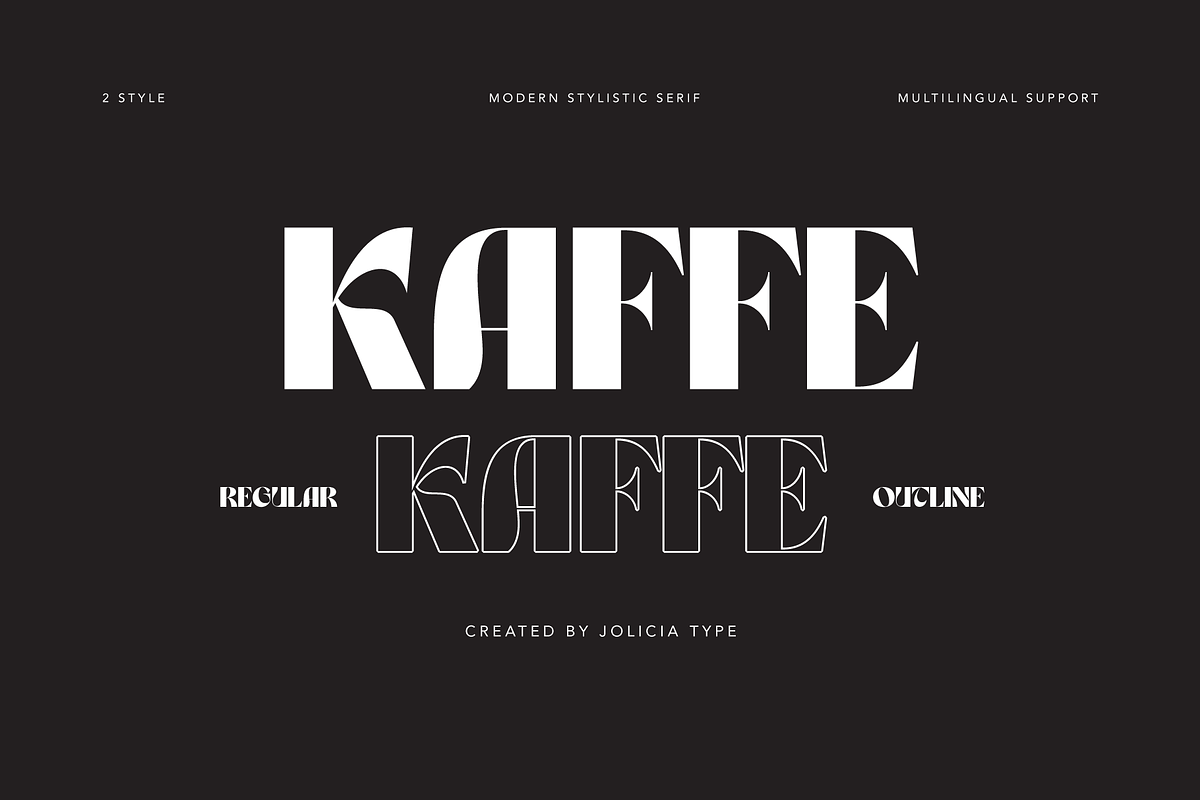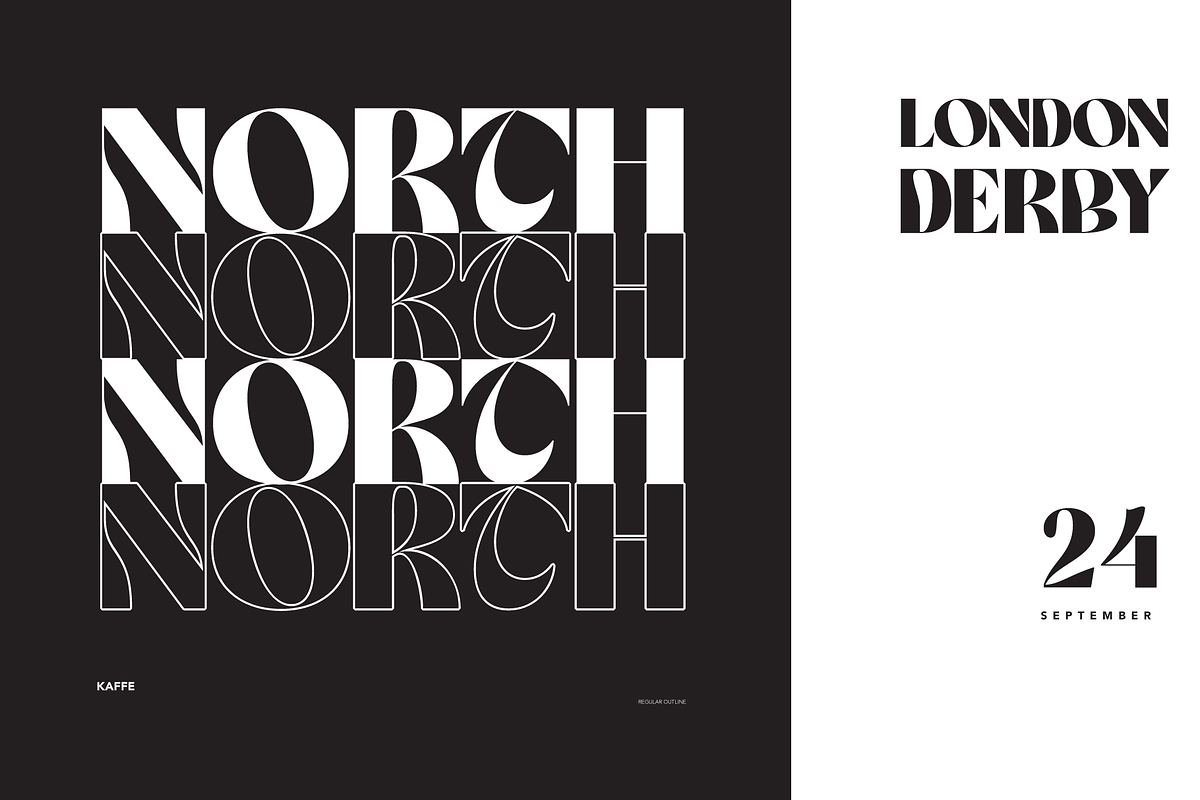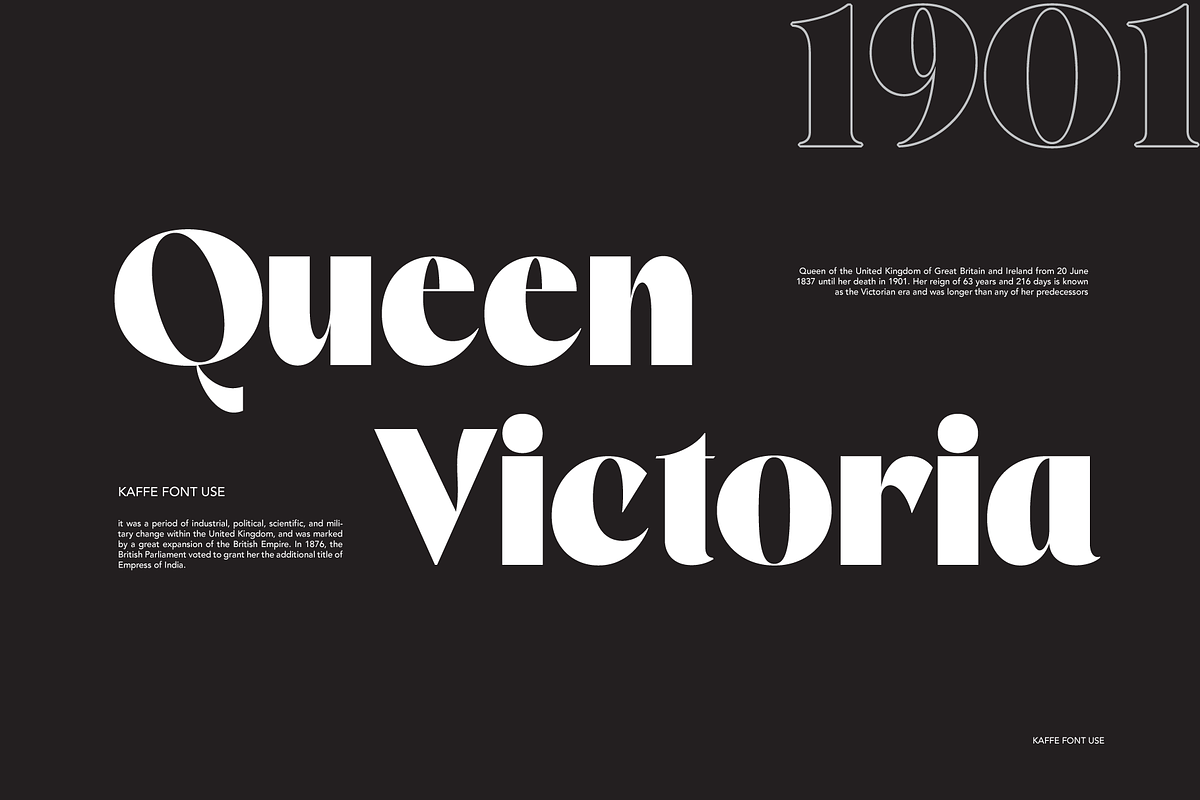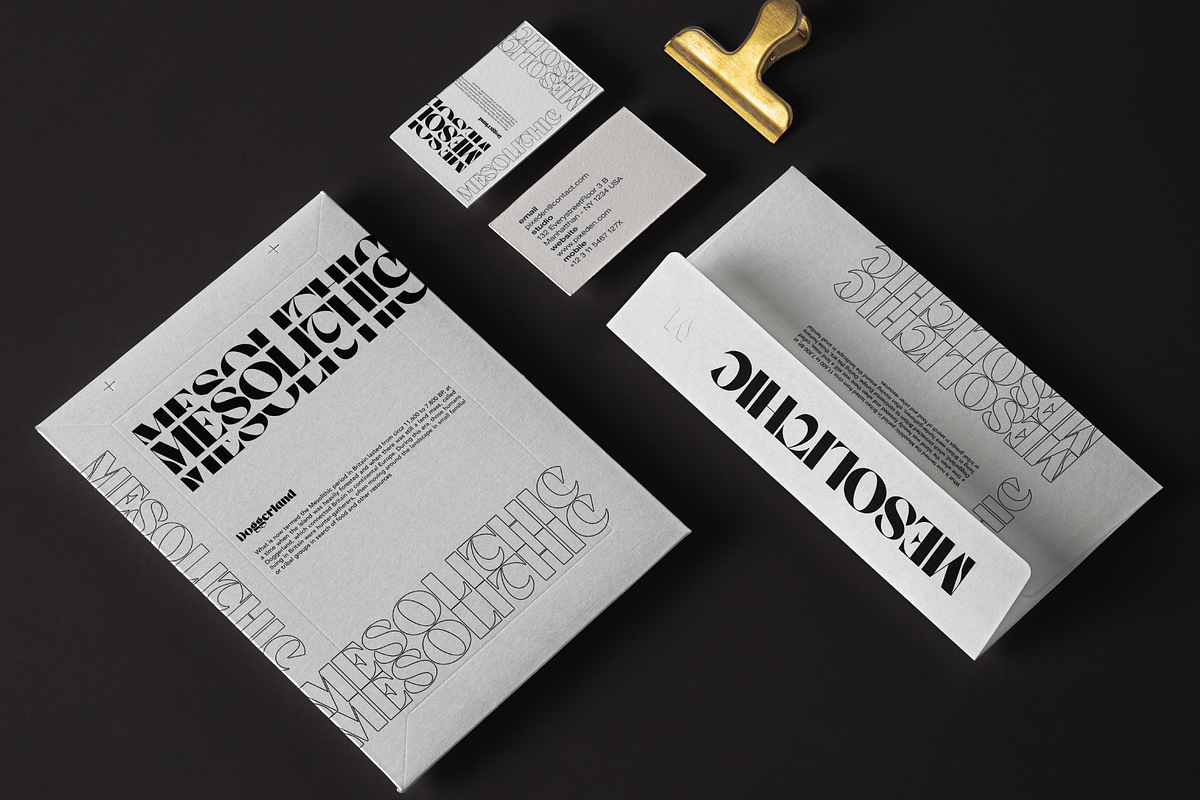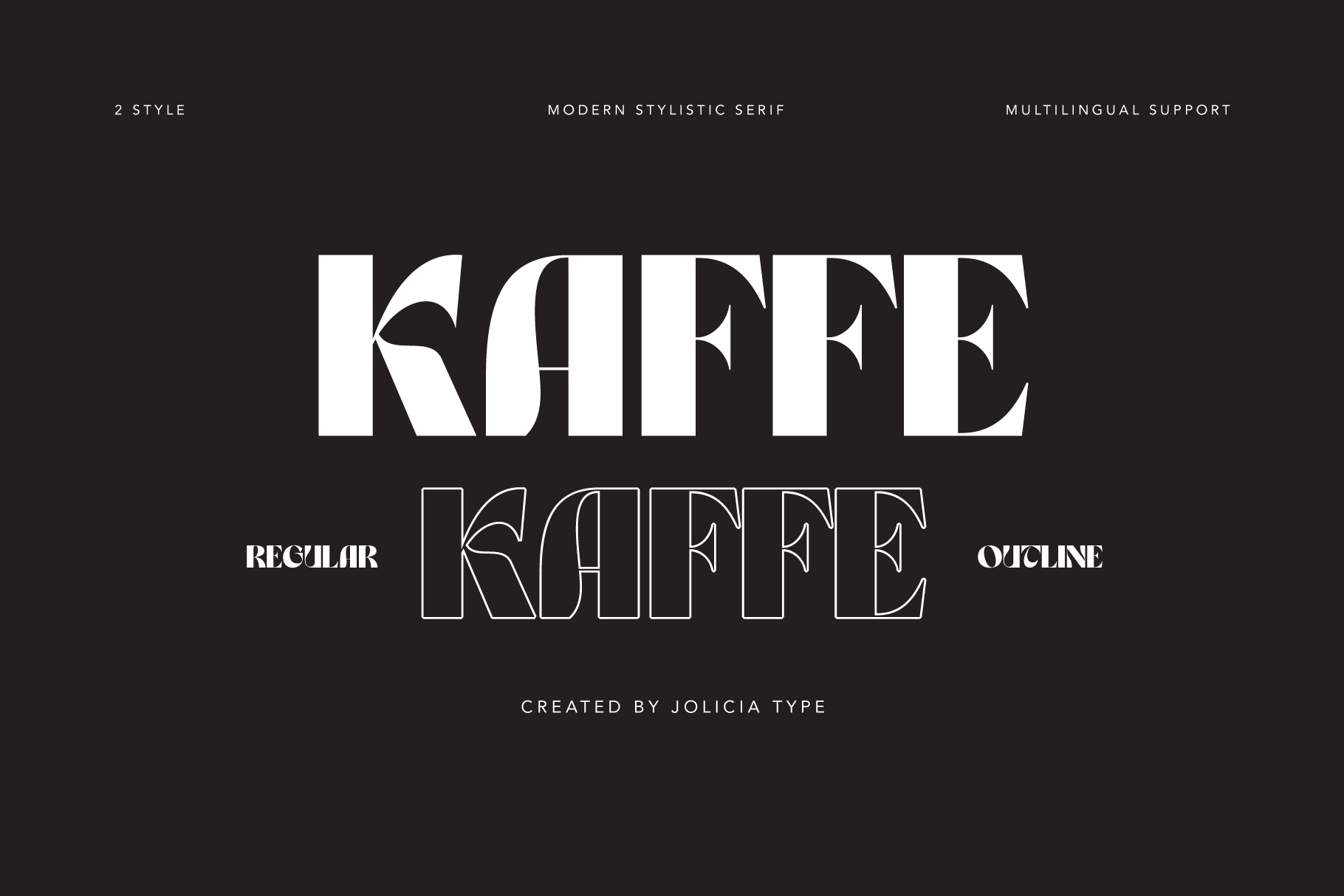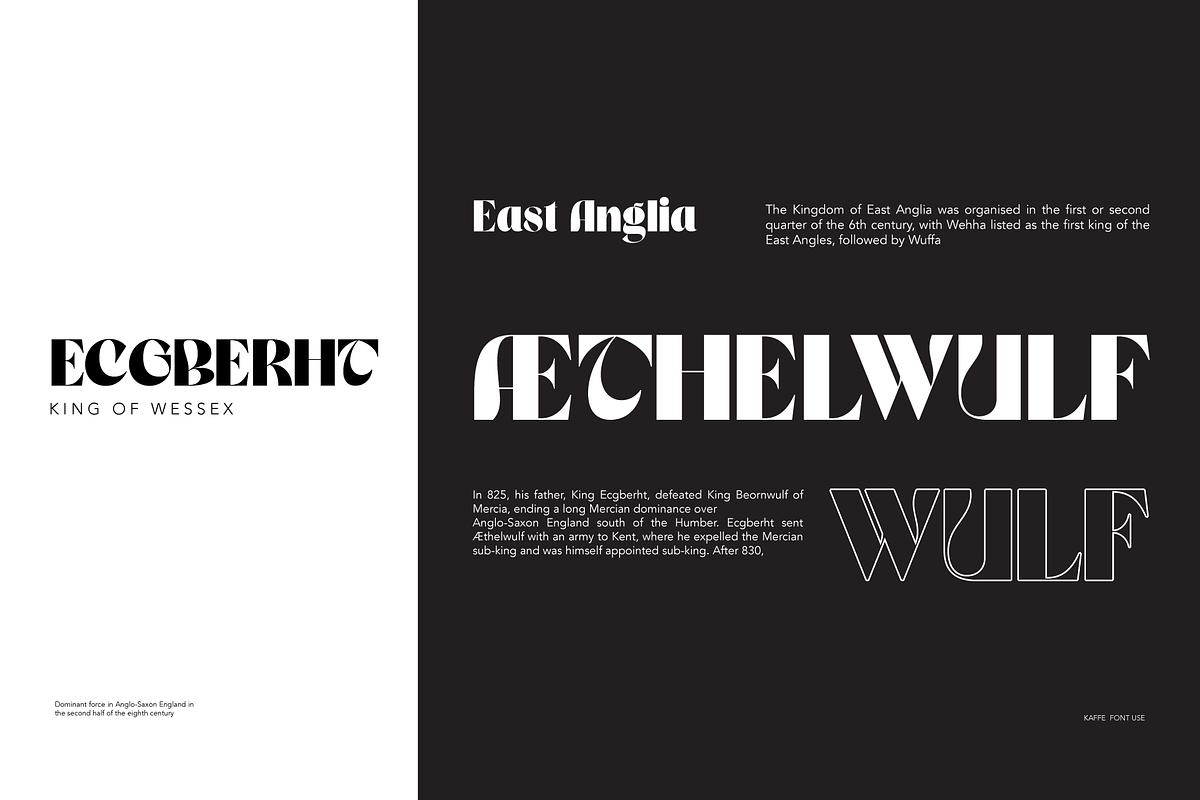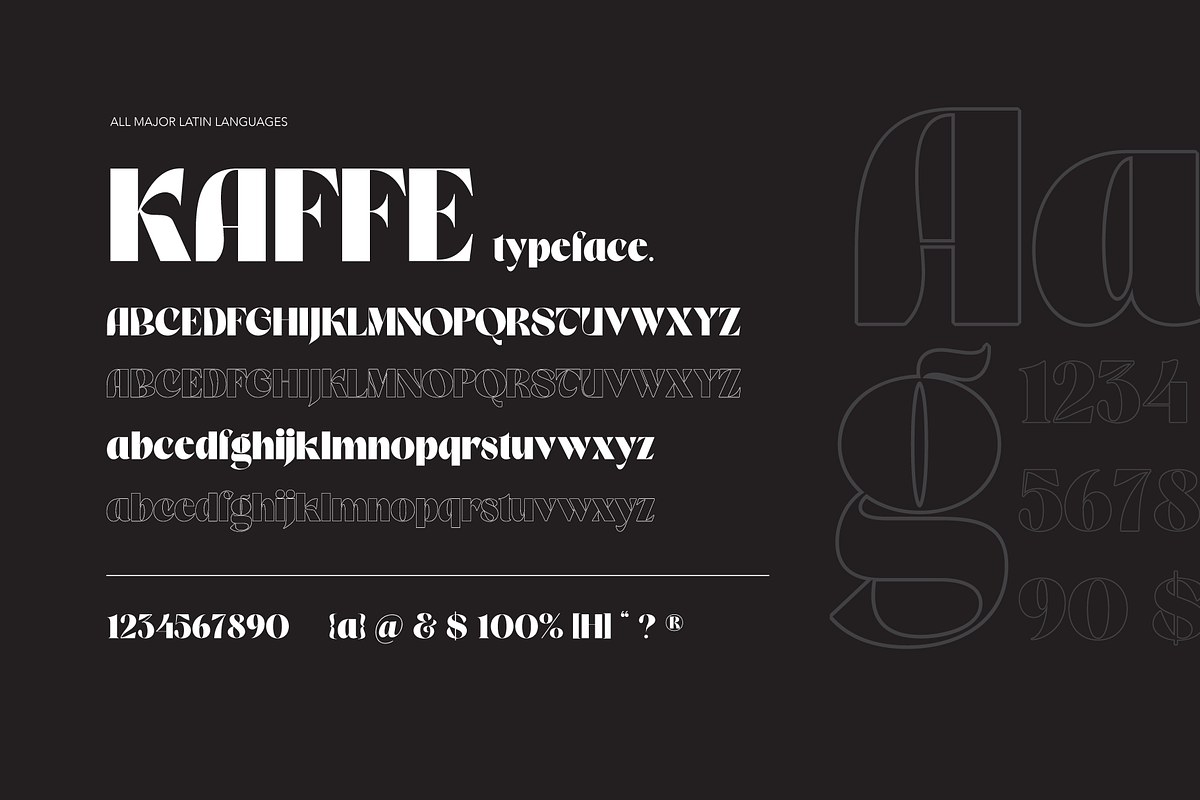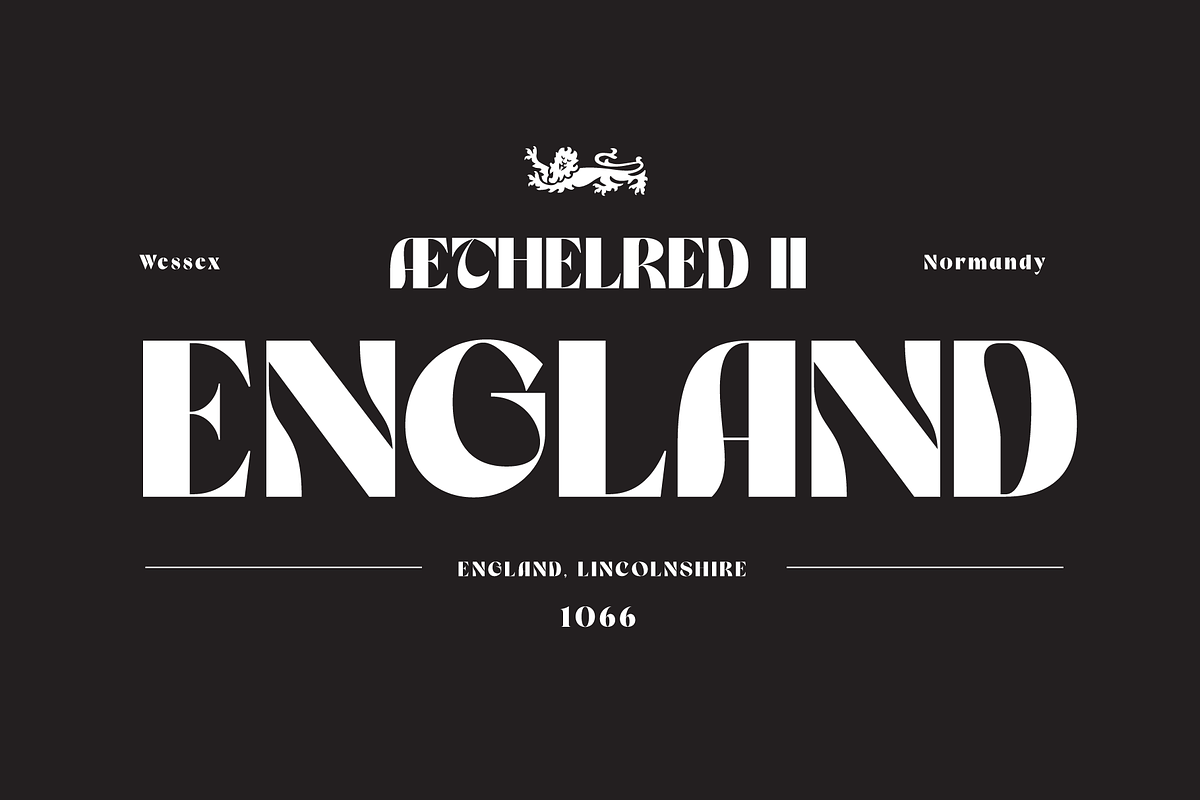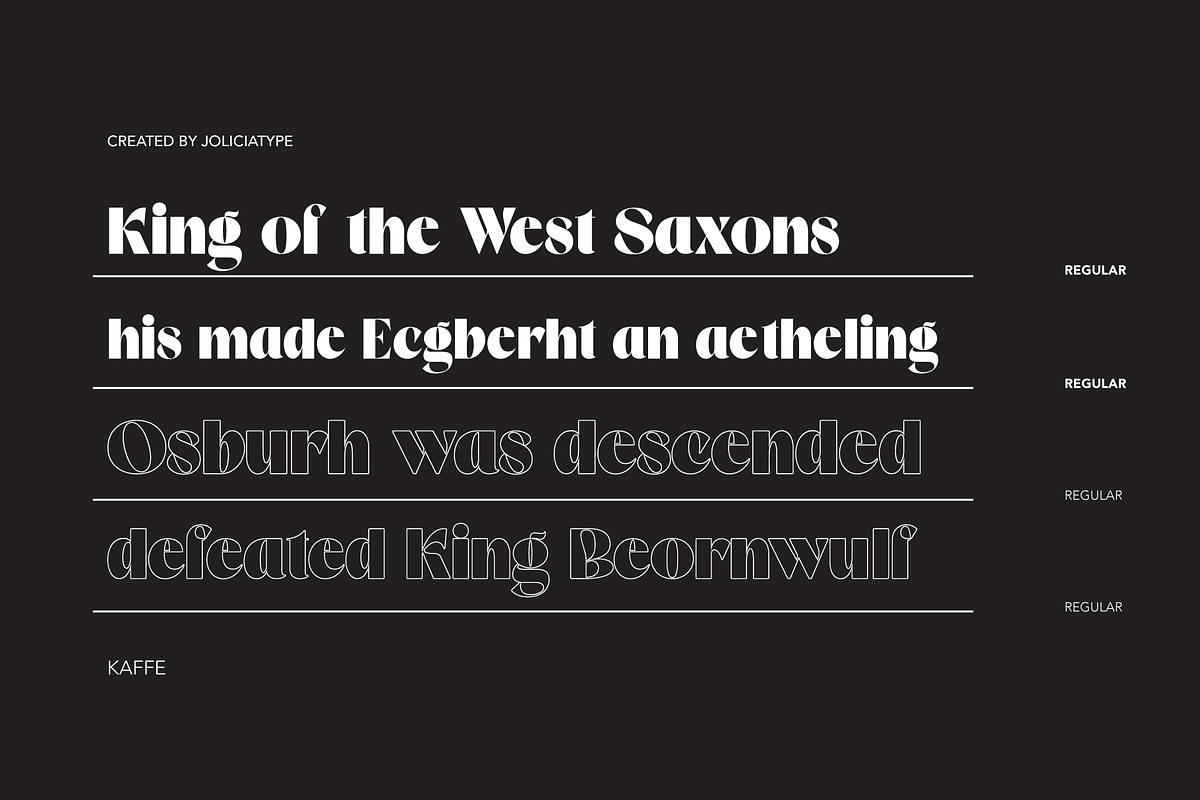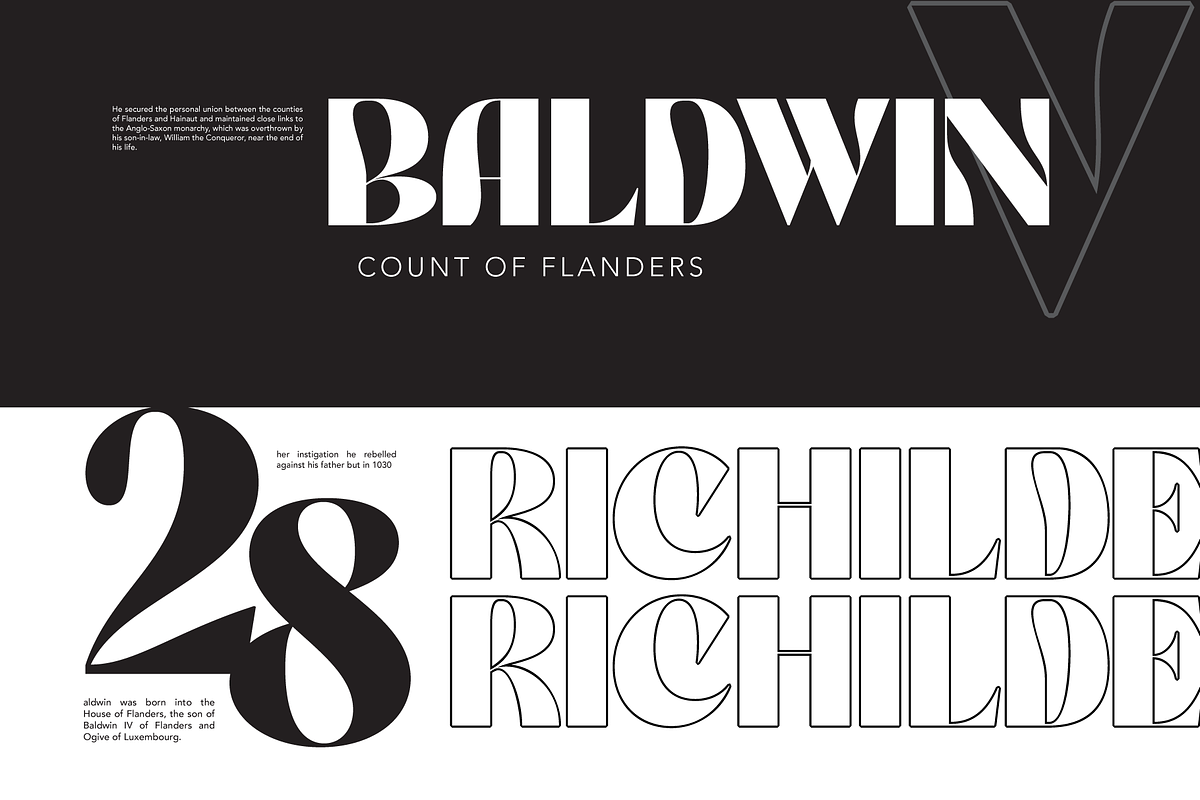
Kaffe | Psychedelic Typefaces
Kaffe is a display typeface inspired by the retro and psychedelic typefaces out. with a bold style and we provide a combination outline style that fits both of them to make it look very trendy and more standout. easy to use for branding, logo, digital marketing, and any more. Features : " Uppercase & Lowercase " Outline " Number " Multilingual Support " Punctuation File Included : " OTF " TTF " WOFF2